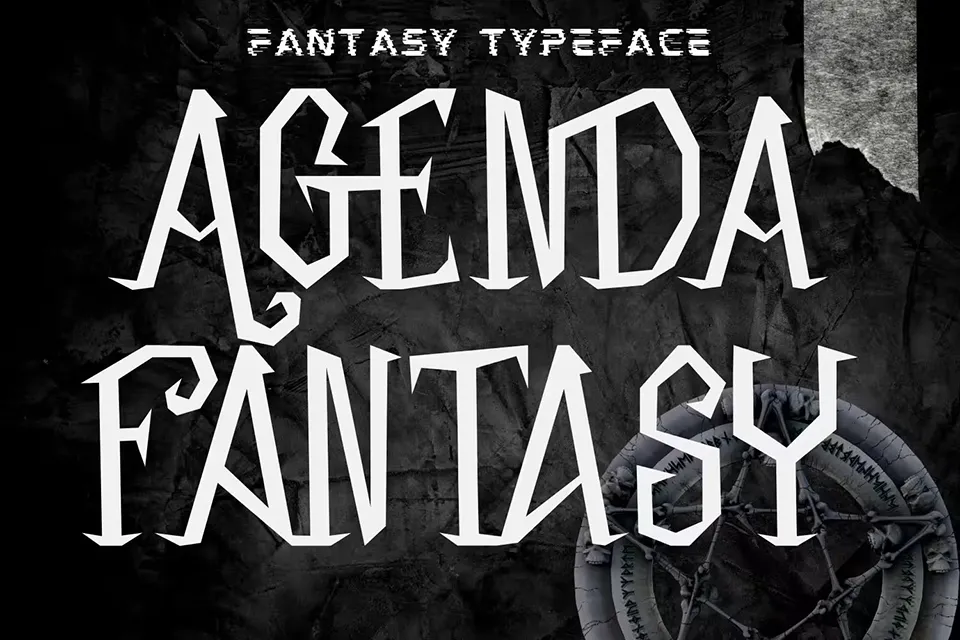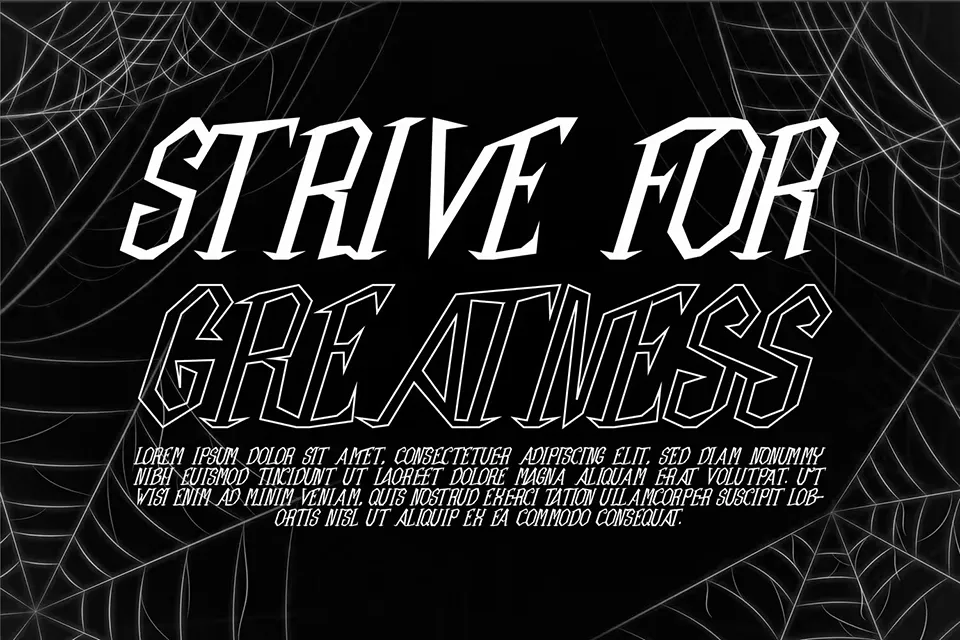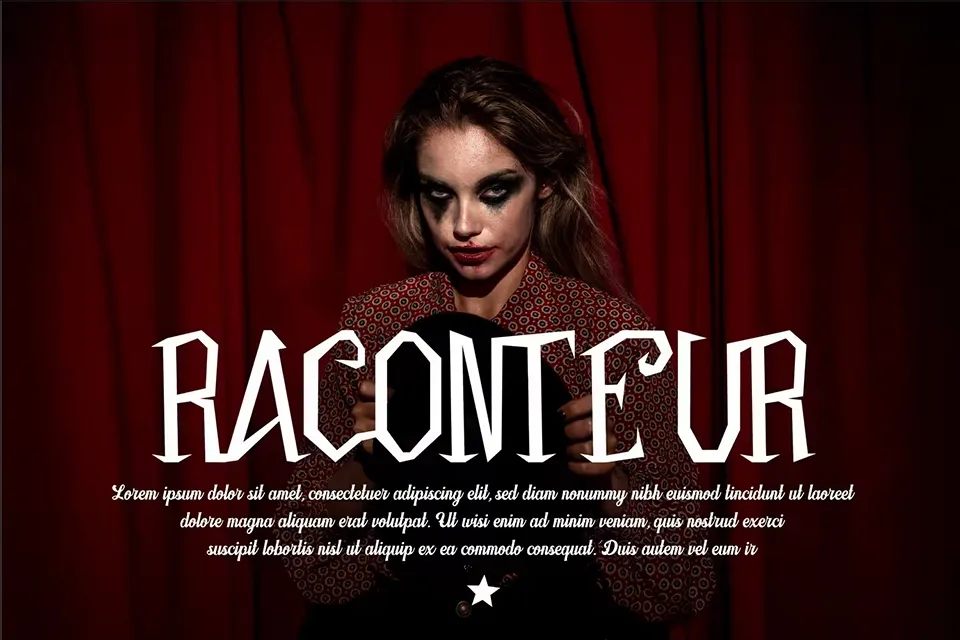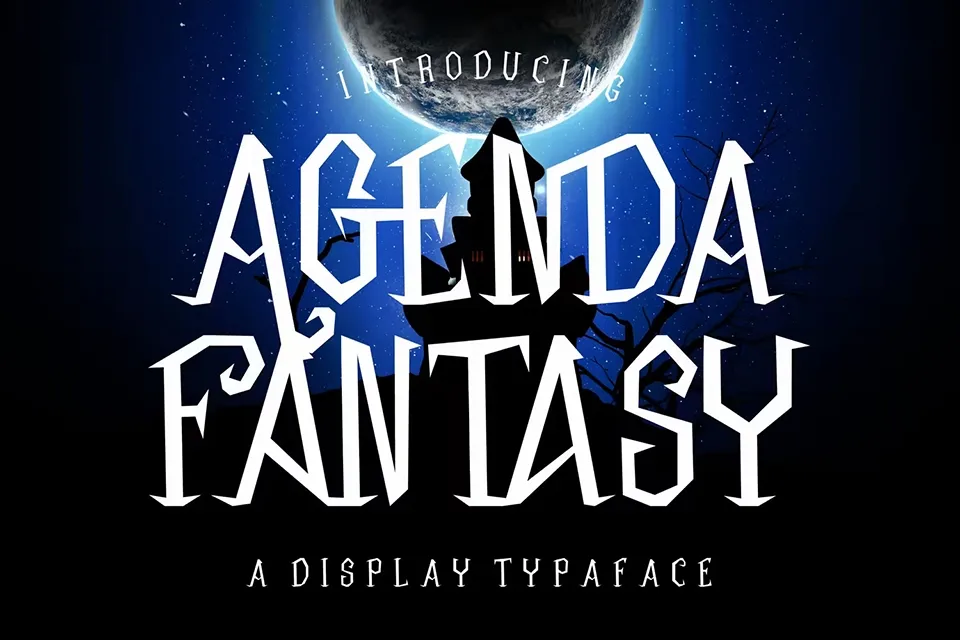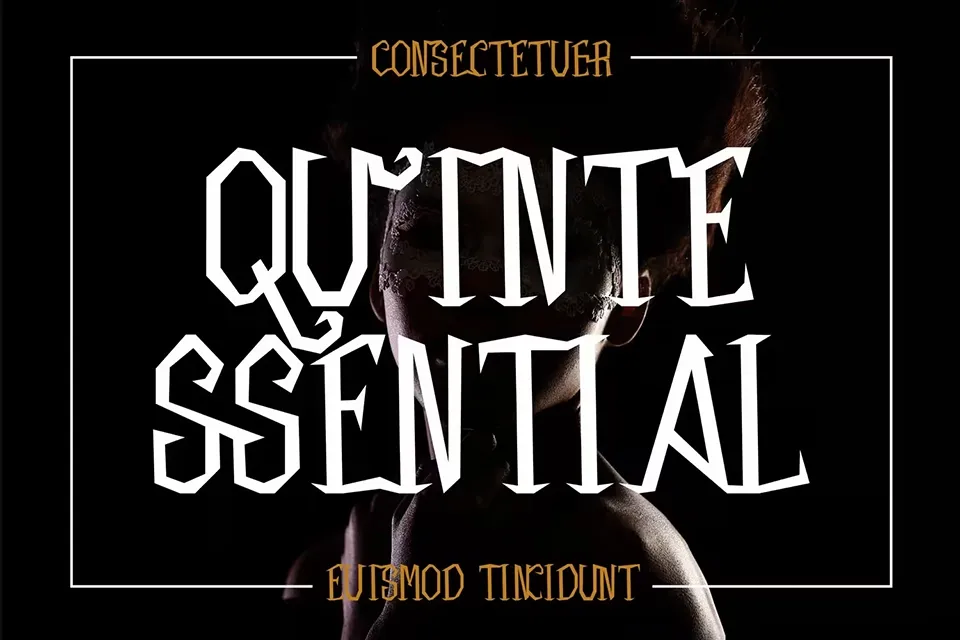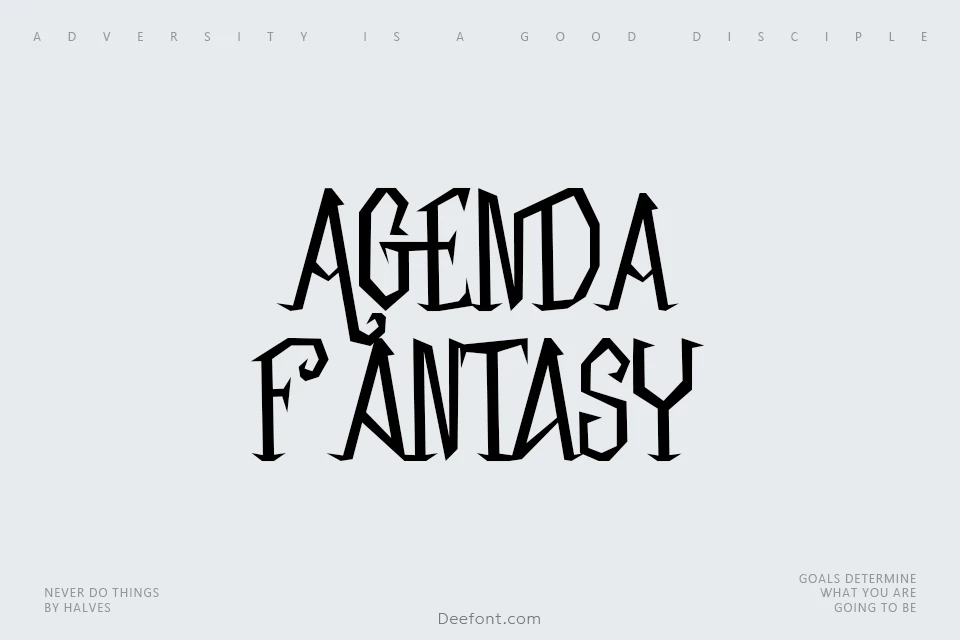
Agenda Fantasy Font
Agenda Fantasy Font is a breathtaking fantasy typeface with a creepy and spooky Halloween aesthetic. This decorative display font features bold, angular lines with ornate Gothic details that create a dramatic medieval appearance. The font was built with OpenType features and includes 100 ligatures, alternates, numbers, punctuation, and supports multiple languages. Agenda Fantasy is perfectly suitable for Halloween-related projects, logo design, branding, gothic design, apparel, hardcore music, fantasy animation, movie titles, adventure posters, game industry applications, book covers, editorial design, and any gothic hand-lettered needs. The typeface consists of uppercase and lowercase letters with special ligatures, numerals, punctuation, and accented characters, making it a comprehensive font family for creative projects.